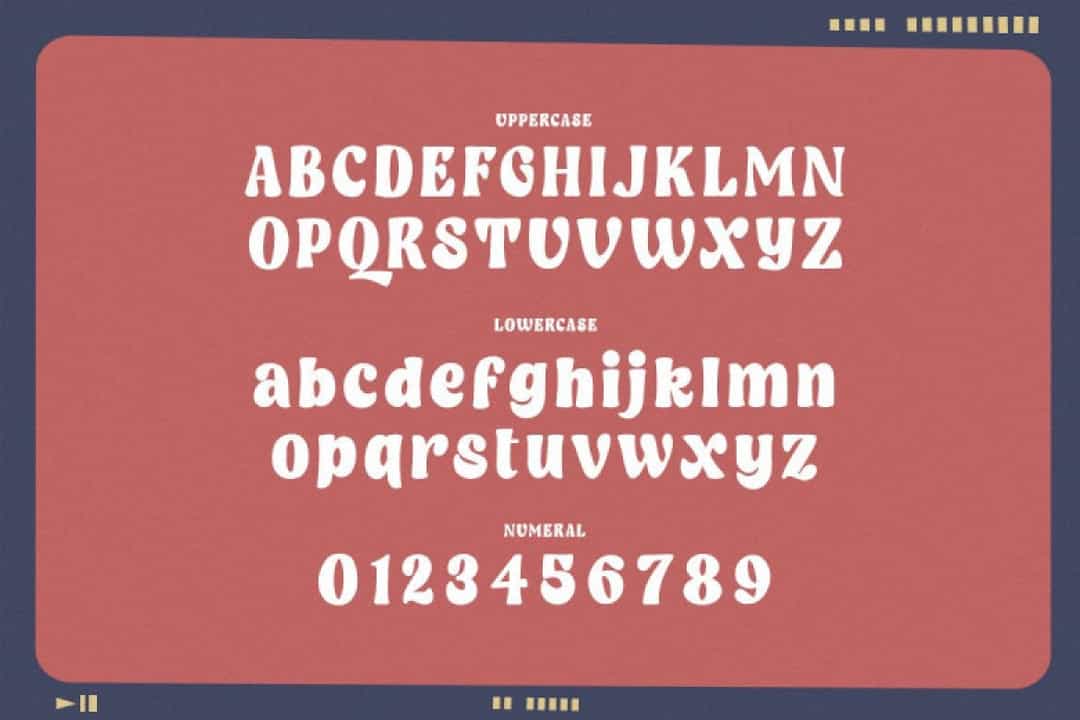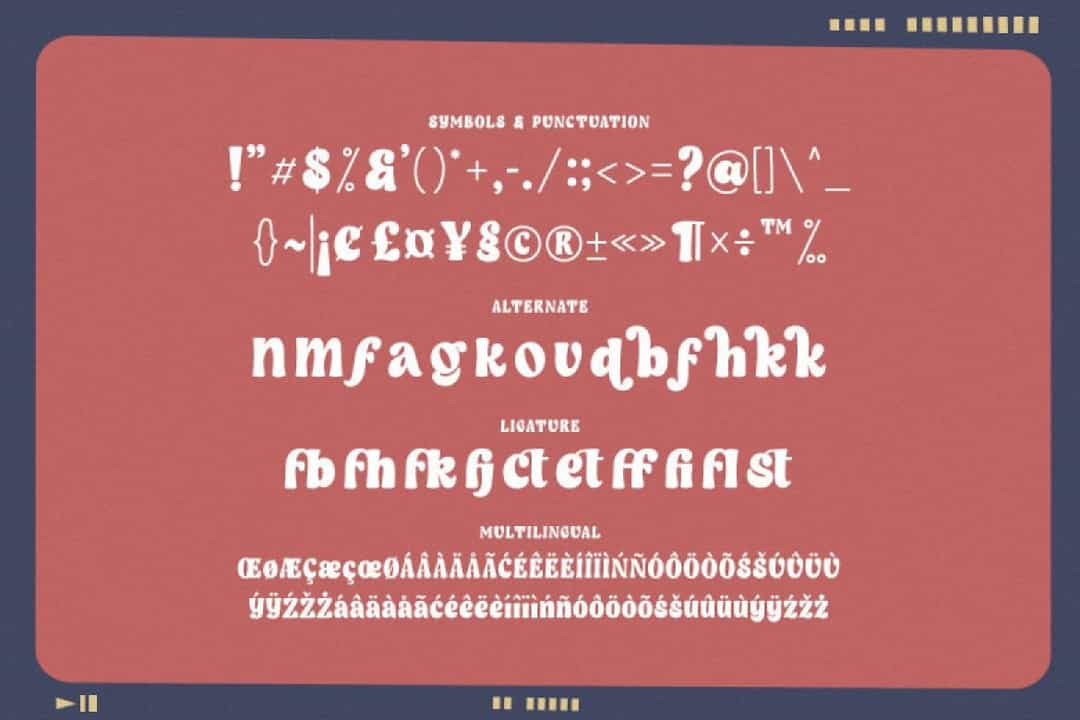
Magdafe font is an exuberant show of fonts designed to bring joyous vibes. Magdafe features nostalgic fonts with an iconic style; use this font for display purposes to give every design idea you have an unique and distinctive finishing touch!